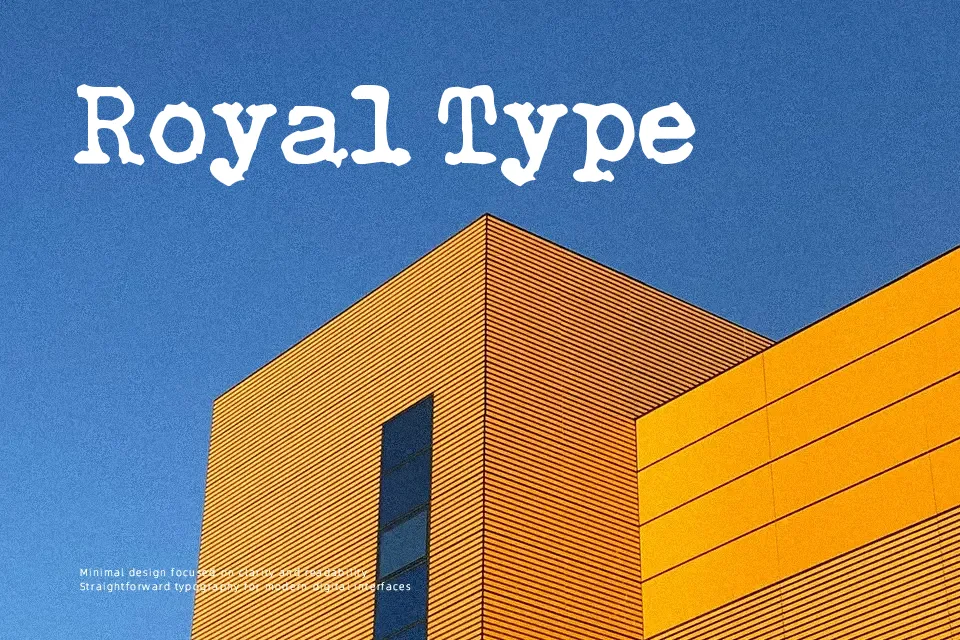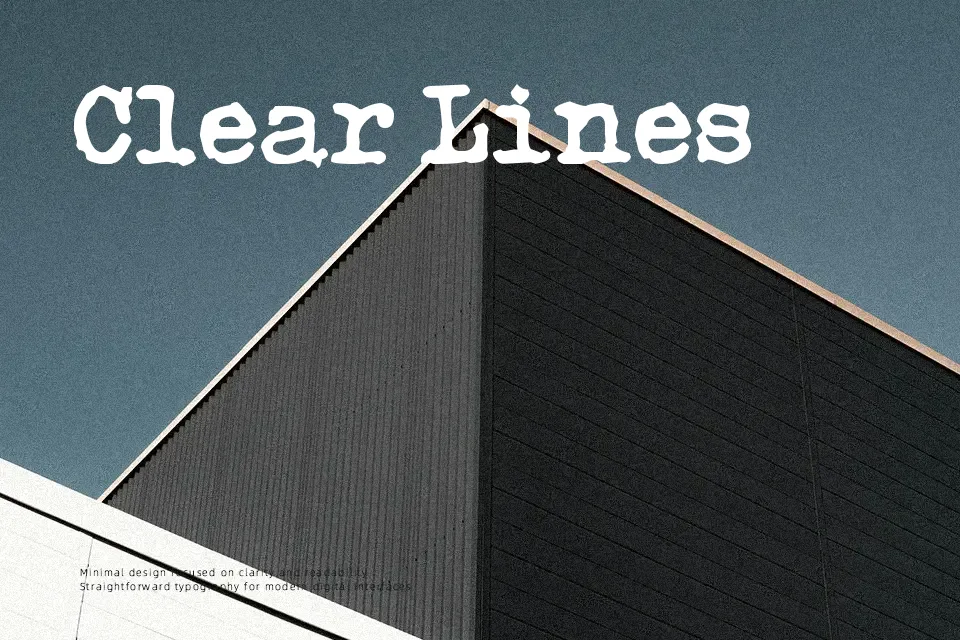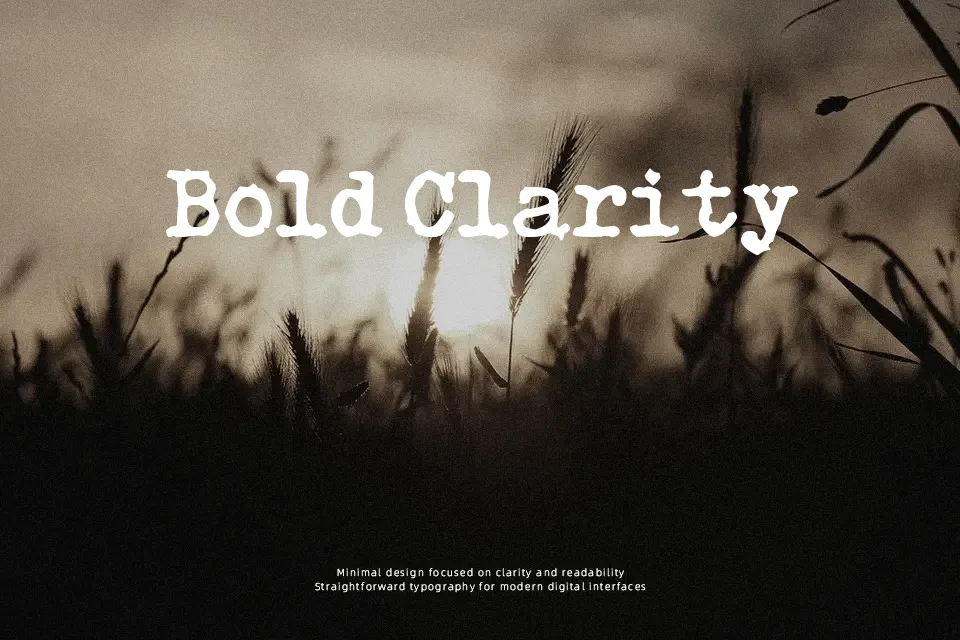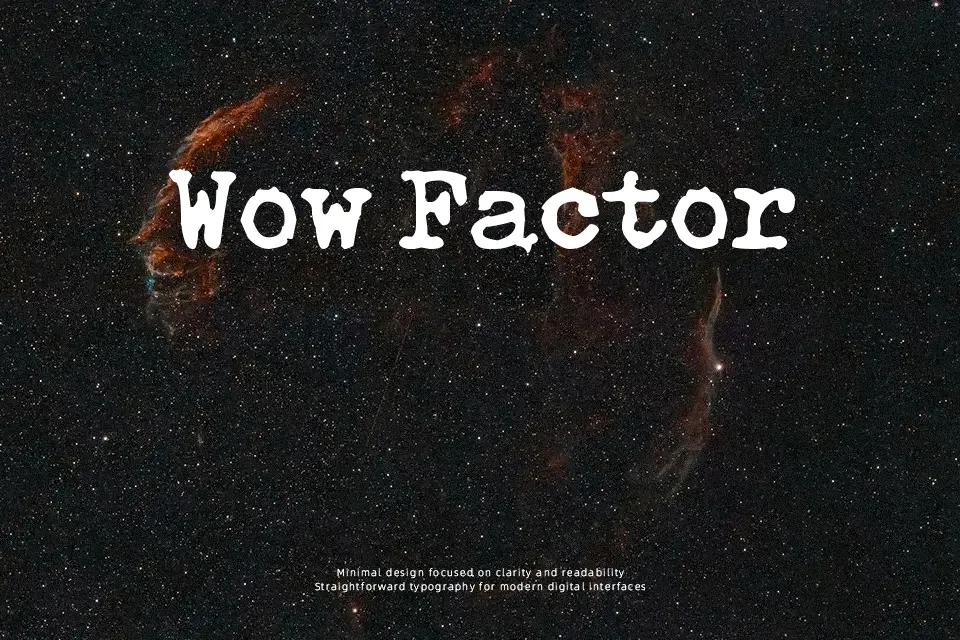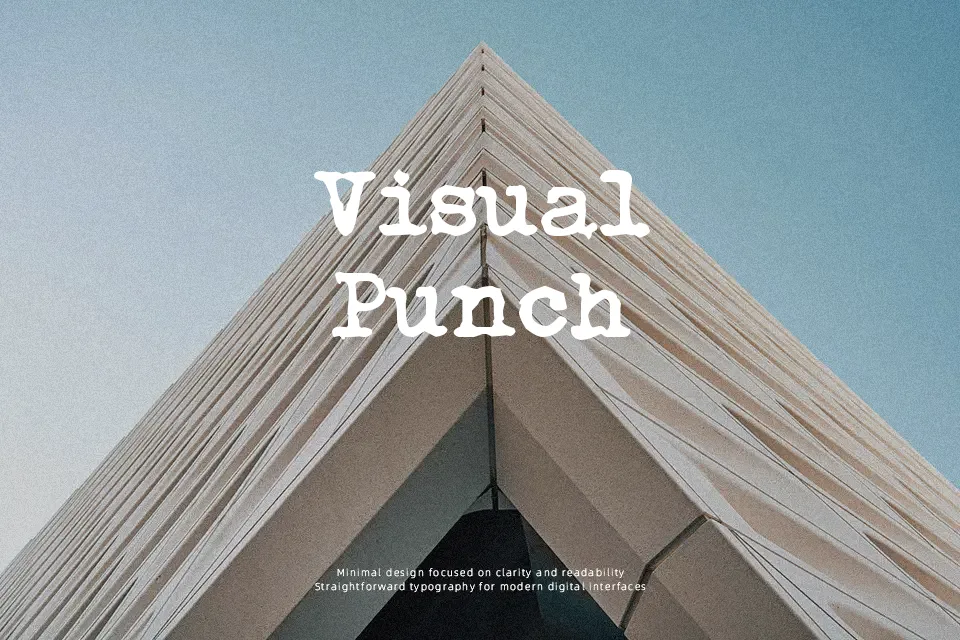
Typetys Font
Typetys Font features a rugged typewriter structure defined by uniform widths, unbracketed slab terminals, and slightly distressed stroke contours. Its letterforms demonstrate consistent vertical alignment alongside balanced, fixed-pitch spacing that evokes genuine mechanical keystrokes. While the design excels in short narrative headlines, zine covers, archival documents, and detective game graphics, the heavy ink weight and monospaced proportions quickly create visual fatigue across long running paragraphs. In practical evaluation, the typeface maintains crisp character separation in medium display titles, but compact punctuation marks risk blurring at reduced sizes. Graphic designers seeking genuine mid-century office realism will appreciate its deliberate tactile imperfections.
Best For: retro poster headlines, vintage document mockups, detective fiction props, archival book covers
Not Ideal For: long paragraph text, dense editorial layouts, small interface labels, corporate spreadsheets
Perfect for editorial, film, and headline, with a classic and display style.